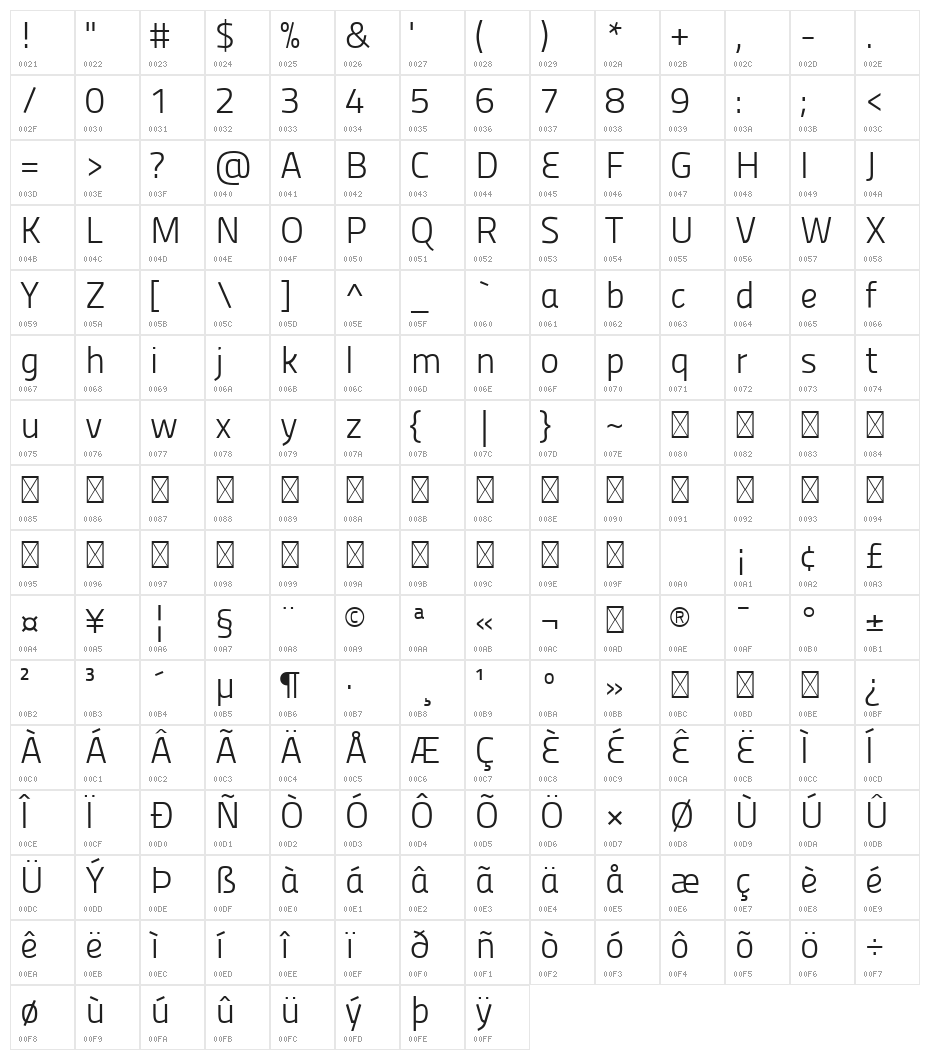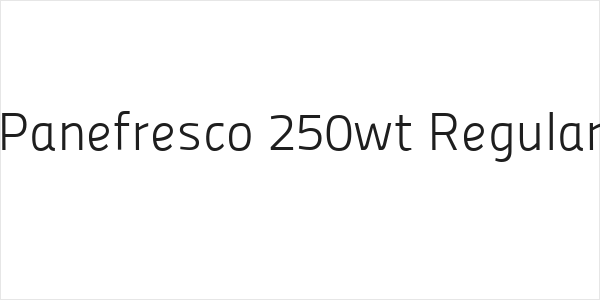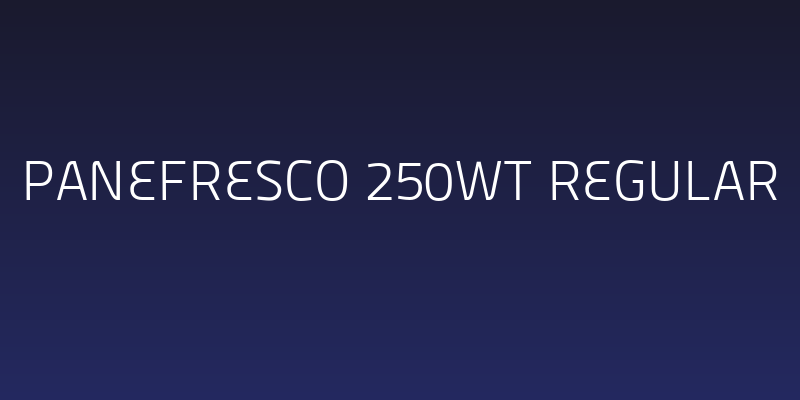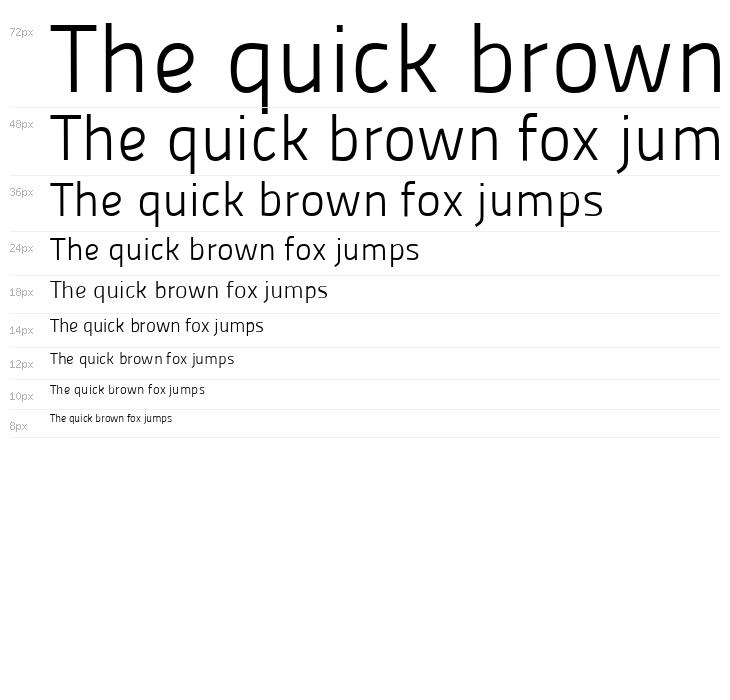
Panefresco 250wt Regular Font
Panefresco 250wt Regular Description
This font features a clean and modern sans-serif design with a geometric structure. The characters are well-balanced and maintain a uniform stroke width, contributing to a sleek and professional appearance. The uppercase letters are slightly taller than the lowercase, providing a clear distinction between the two. The numerals are consistent with the overall style, ensuring readability and harmony across different uses. Special characters are designed to match the font's minimalist aesthetic, making it versatile for various applications.
| Proposed Projects | Ideal for corporate branding, digital interfaces, and editorial design due to its clarity and modern appeal. |